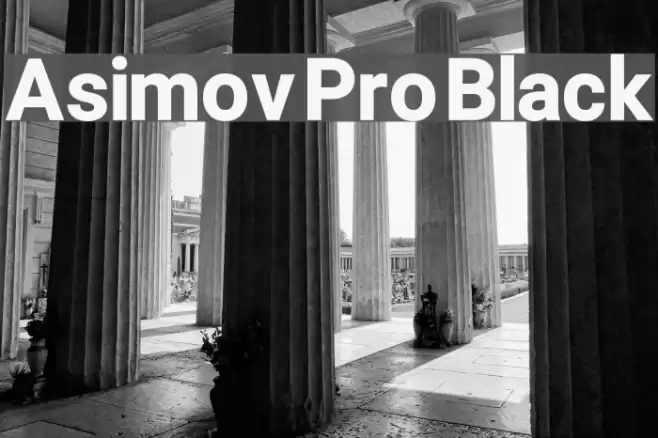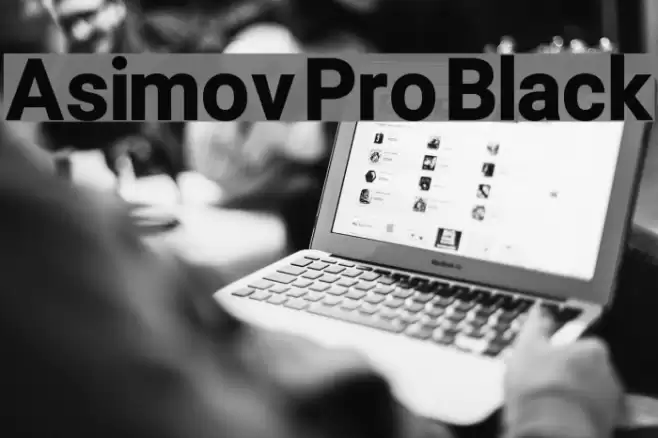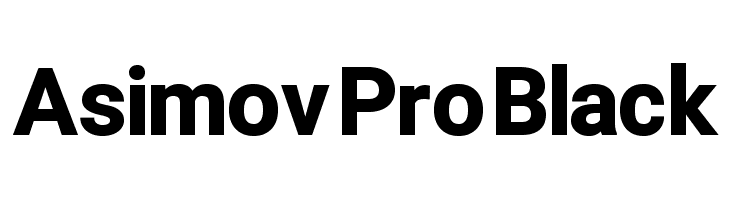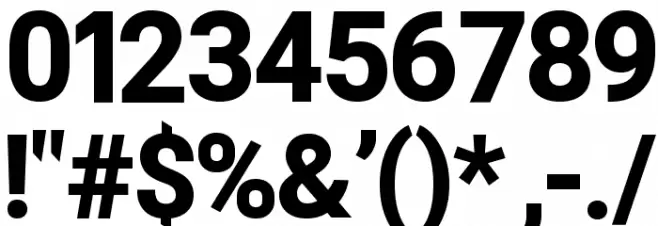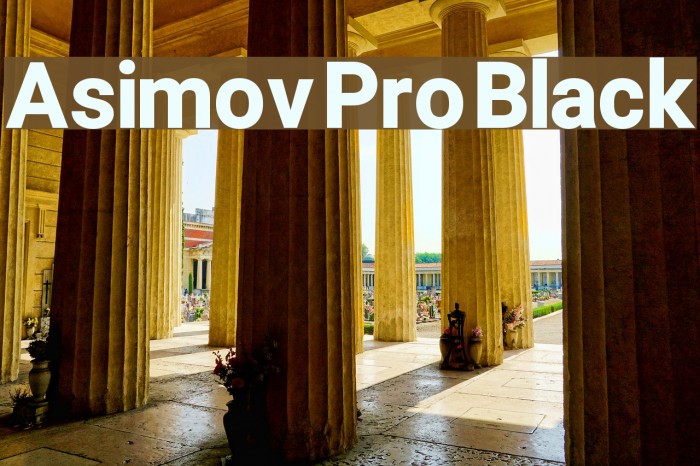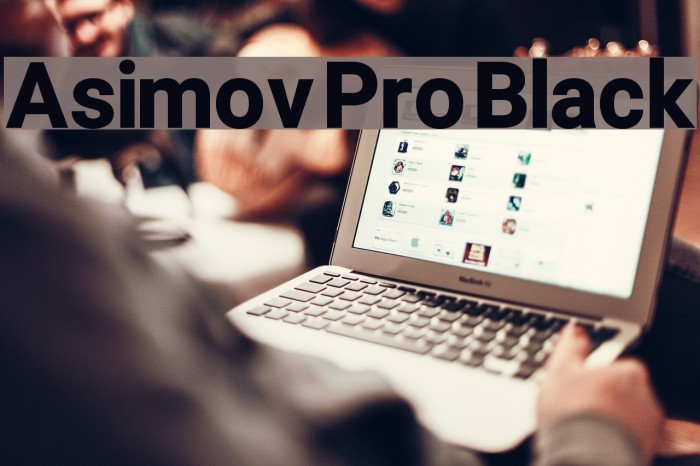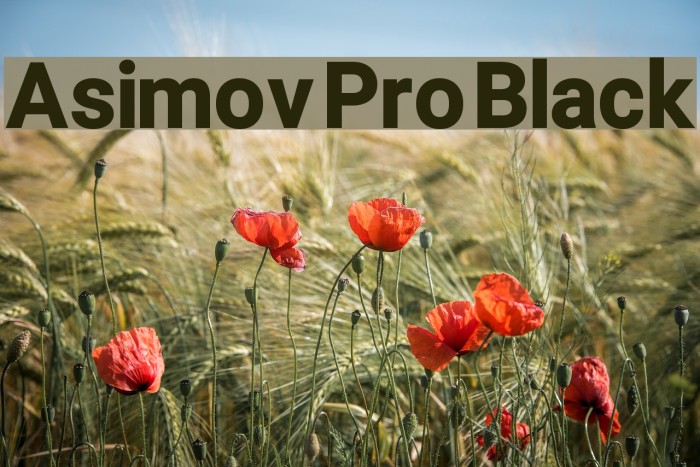
Asimov Pro Black Font
Asimov Pro Black Description
This font exhibits a bold and assertive style, characterized by thick, uniform strokes that convey strength and modernity. The uppercase letters are robust and impactful, making them ideal for attention-grabbing headlines. The lowercase letters maintain a consistent weight, ensuring readability while retaining a strong presence. Numerals are clear and straightforward, complementing the overall bold aesthetic. The special characters are designed with the same boldness, ensuring they stand out in any context. This font's design is clean and straightforward, making it versatile for various applications.
- Proposed Projects: This font is perfect for branding projects, advertising campaigns, posters, and any design work that requires a strong, modern presence.